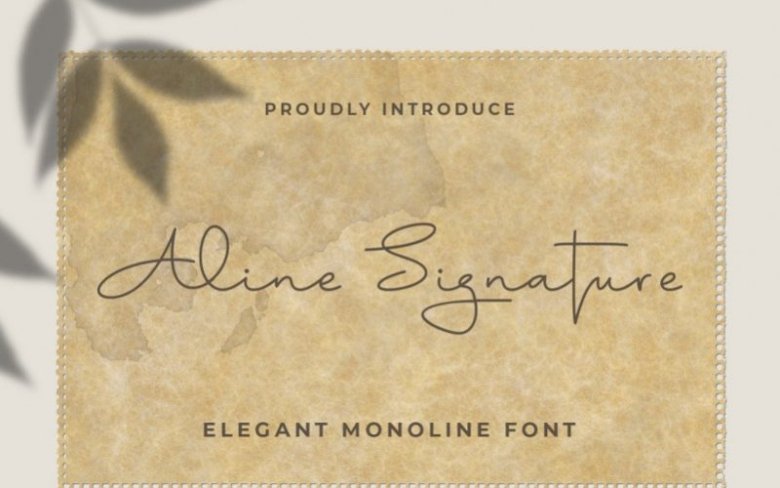
Aline Signature Font
Aline Font is a lovely handwritten calligraphy font . It is perfect for branding, wedding invites and cards.
“Aline” includes full set of uppercase and lowercase letters, multilingual symbols, numerals, punctuation and ligatures.